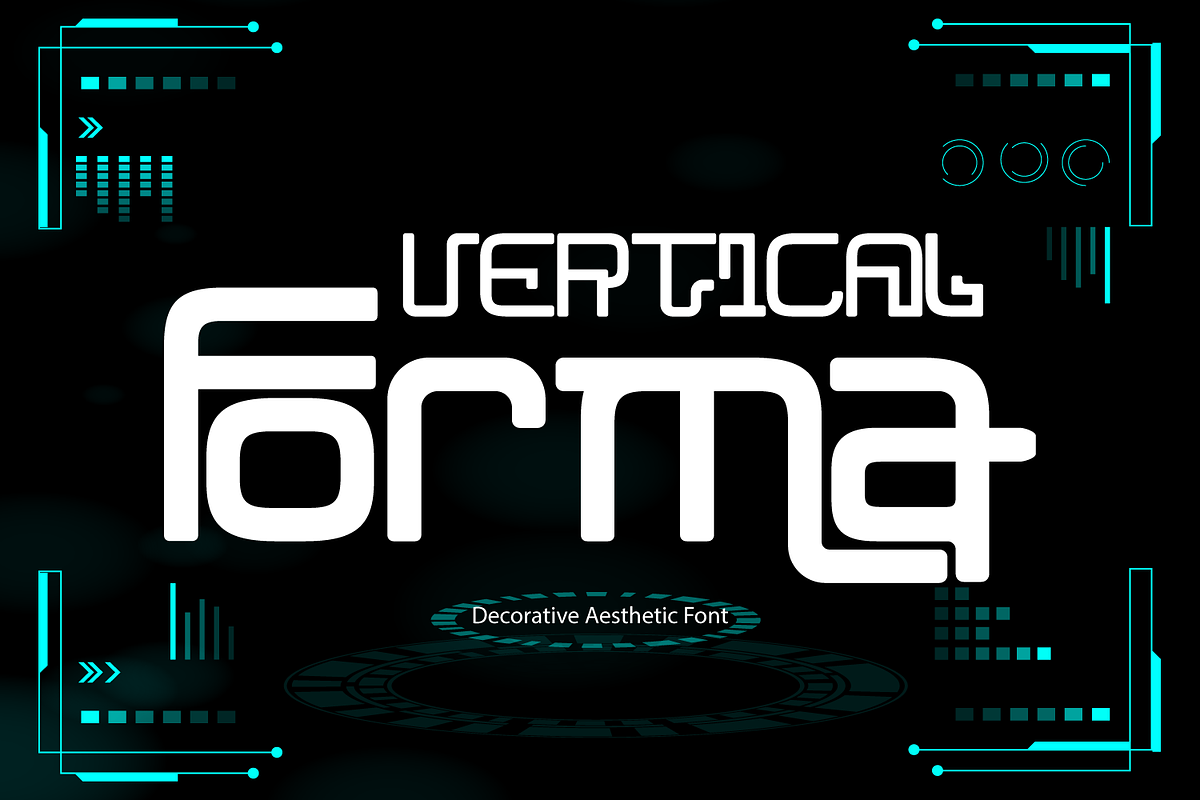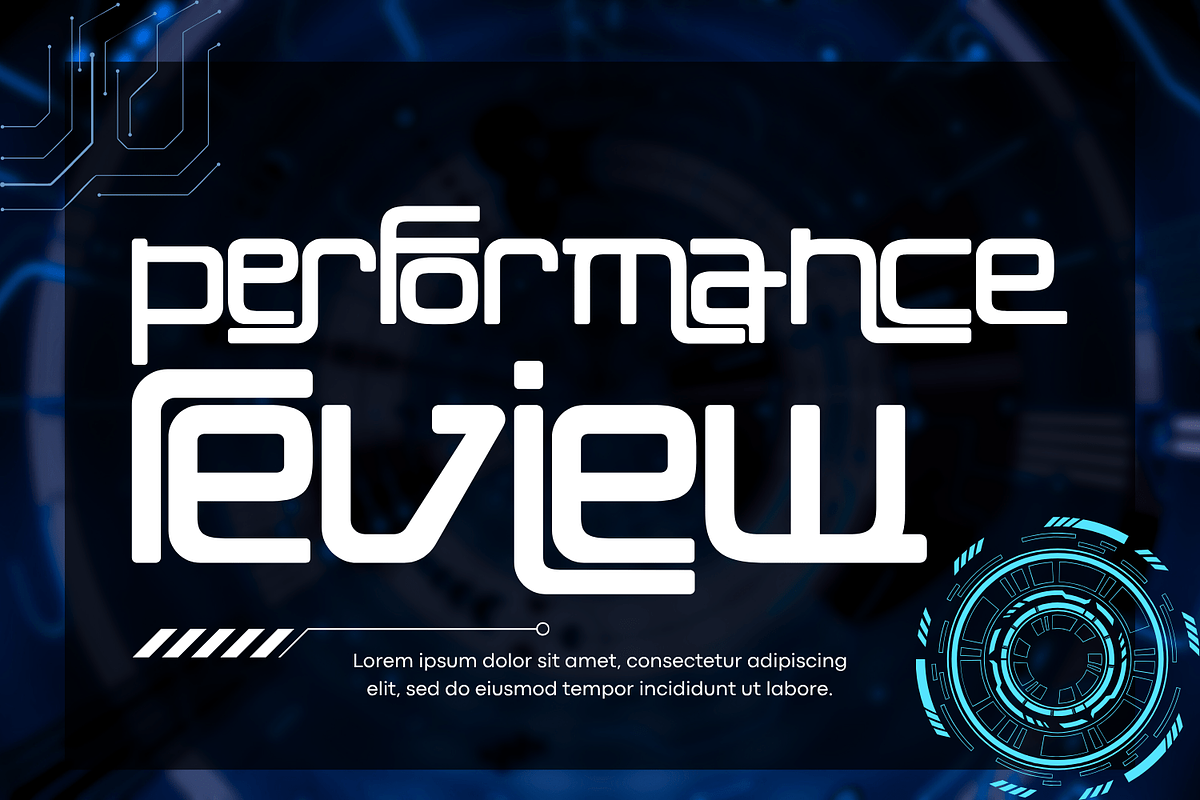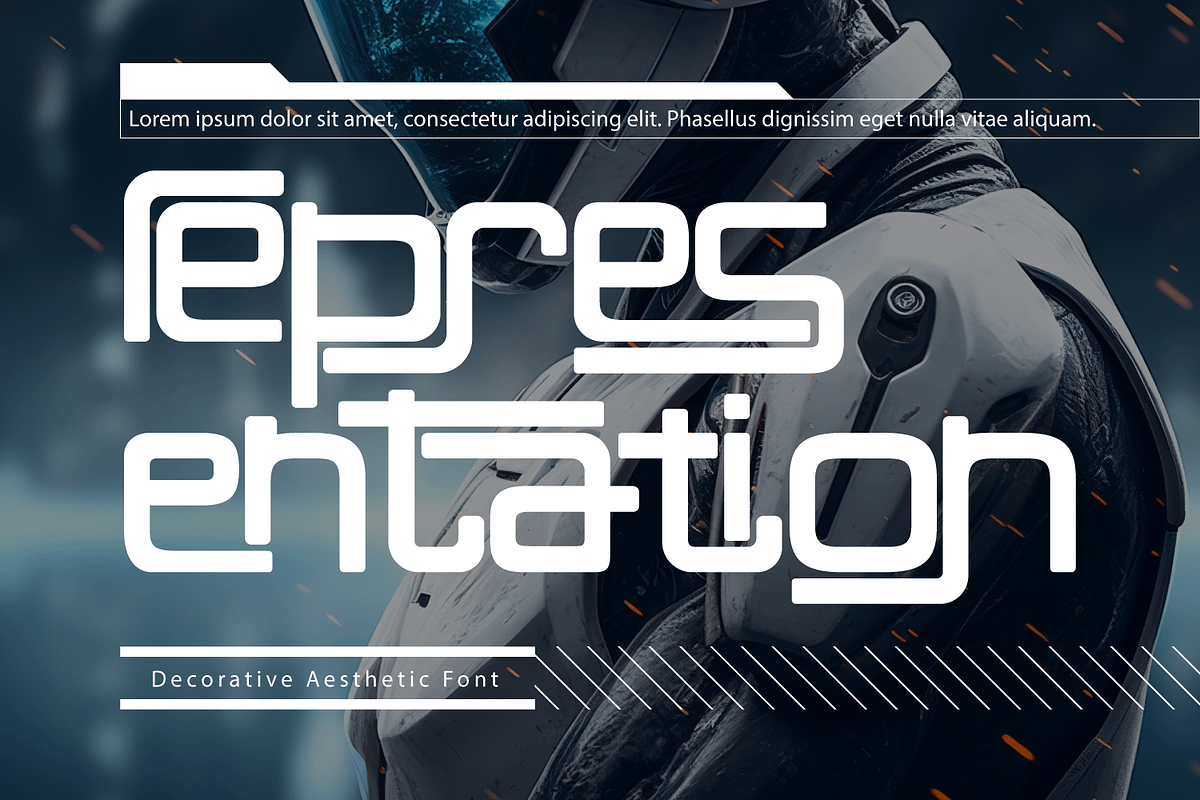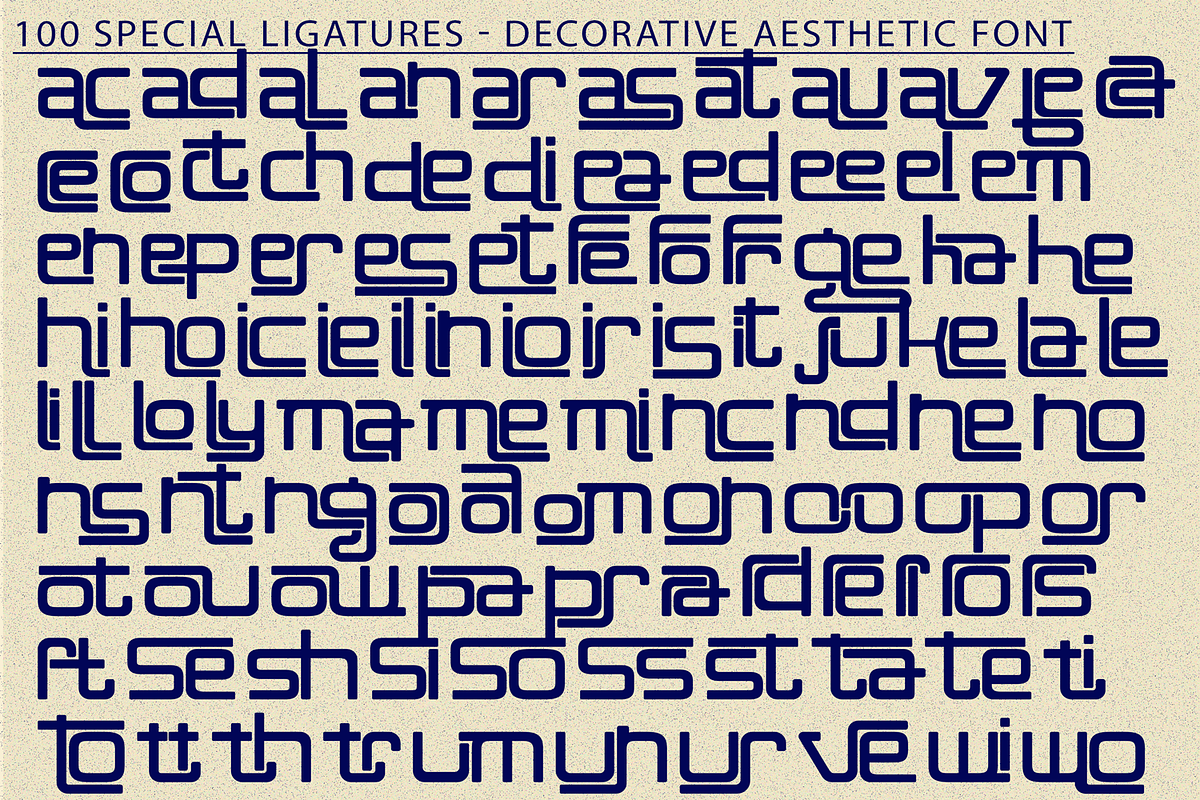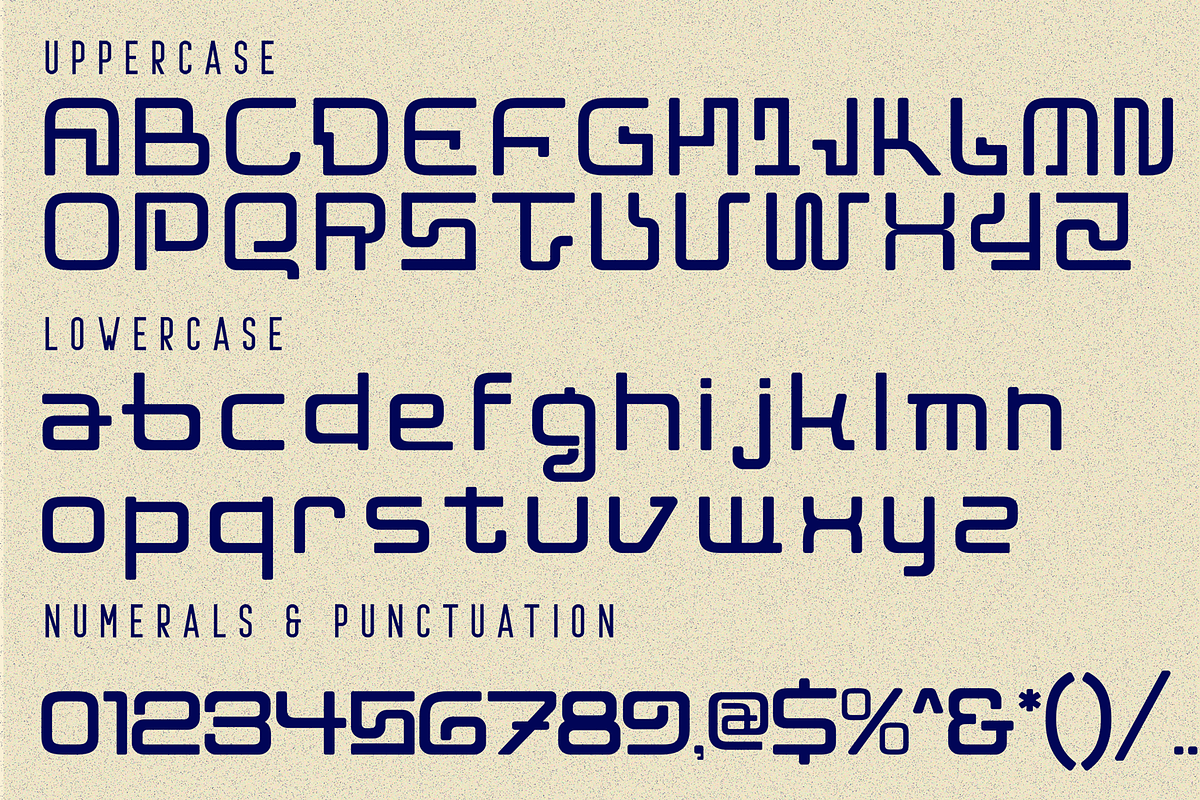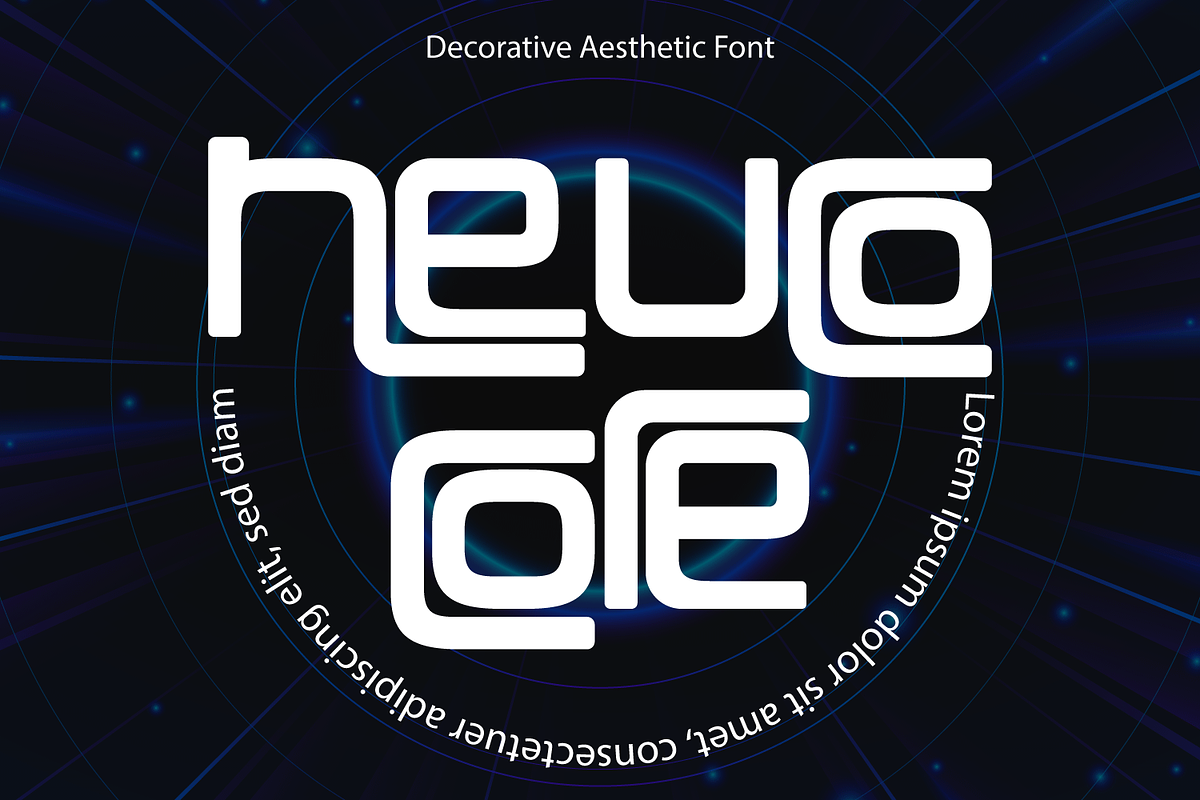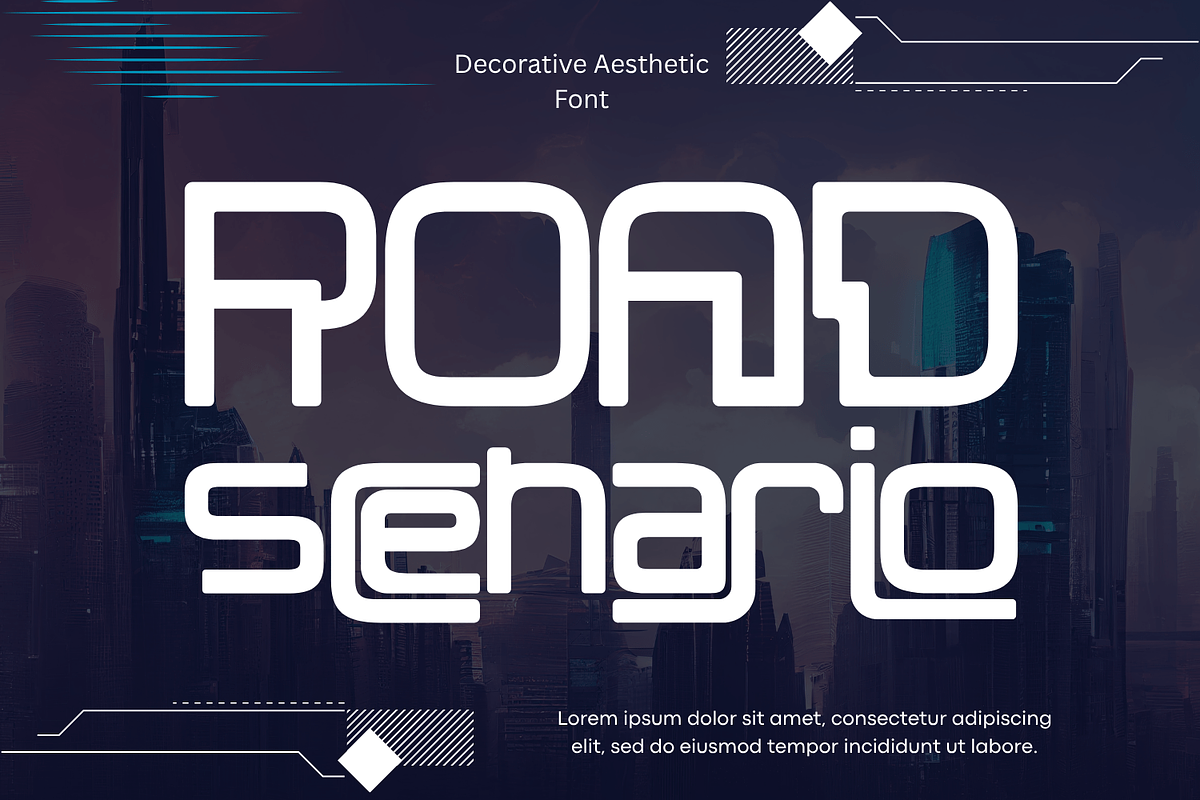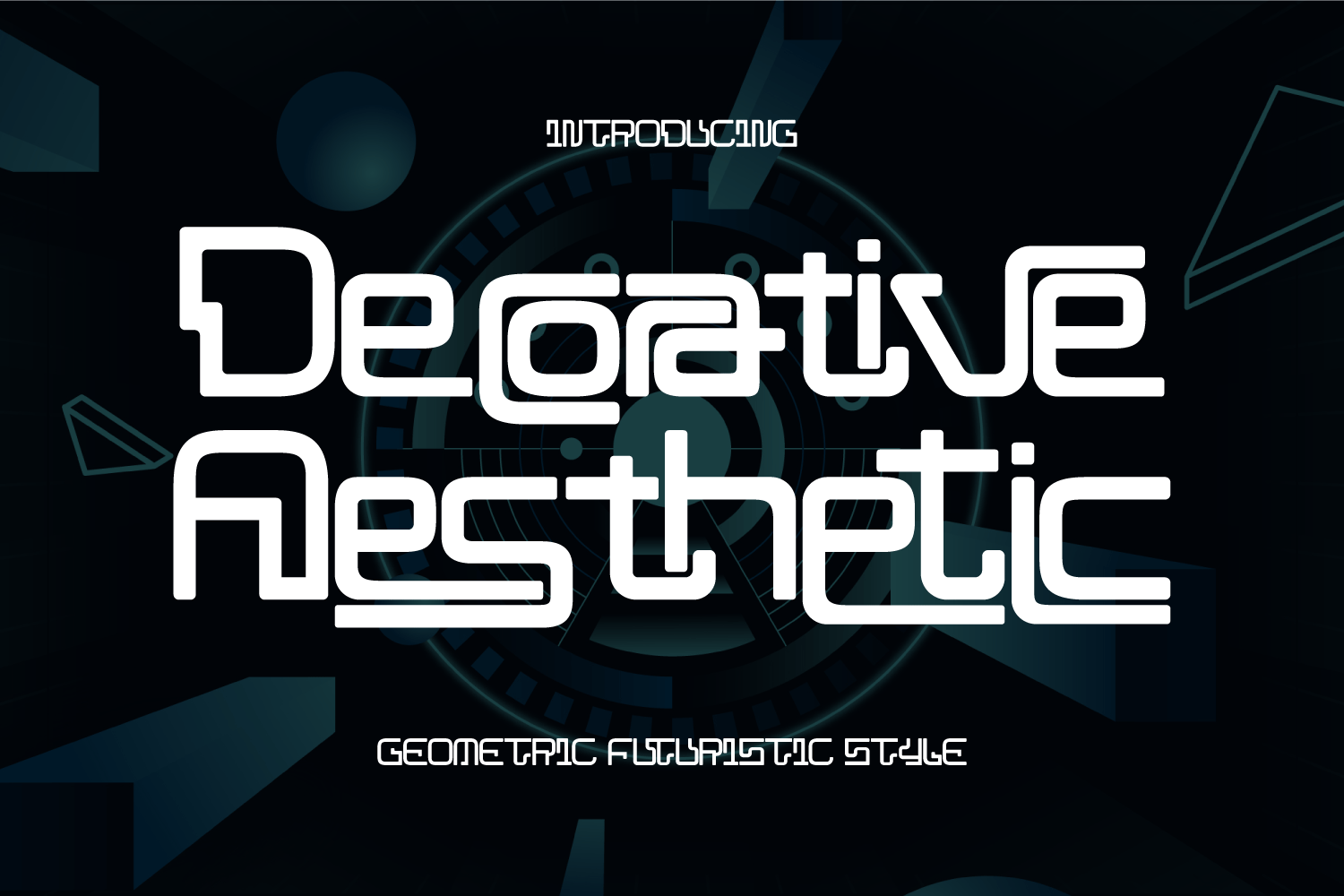
Decorative Aesthetic Futuristic Font
Decorative Aesthetic - Futuristic Font, a futuristic Geometric Sans-Serif Display Font designed with precision and modular balance. Its rounded corners and structured letterforms create a seamless flow, making it perfect for digital-age designs that demand both clarity and creativity. This typeface blends minimalist construction with modern aesthetics, giving every word a sense of rhythm and innovation. Ideal for branding, posters, packaging, UI design, and editorial layouts that need a sleek, contemporary vibe.
- Uppercase & Lowercase Letters
- Around 100 Special Ligatures for creative combinations
- Accented Characters supporting multiple languages
About 100 ligatures combined with Stylistic Alternates Font:
ac ad al an ar as at au av be ca ce ch co ct de di ea ec ed ee el em en ep er es et fe fo fr ge ha he hi ho ie ic il in io ir is it ju ke la le li ll lo ly ma me mi nc nd ne ng no nt ns oc of om on oo op or ot ou ow pa pr ra rd re ri ro rs rt se sh si so ss st ta te th ti to tr tt um un ur ve wi wo